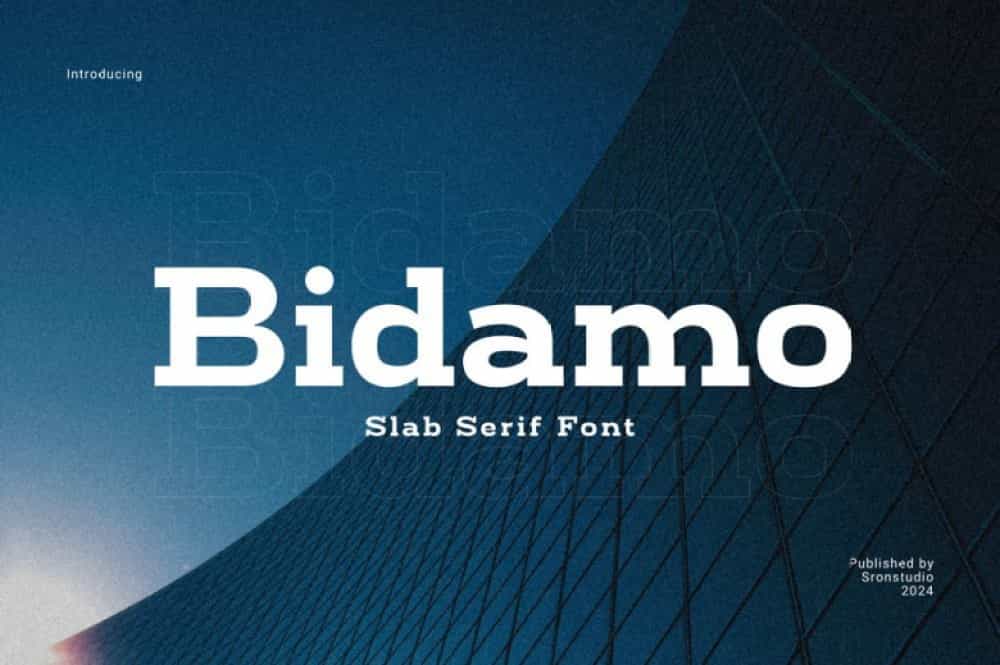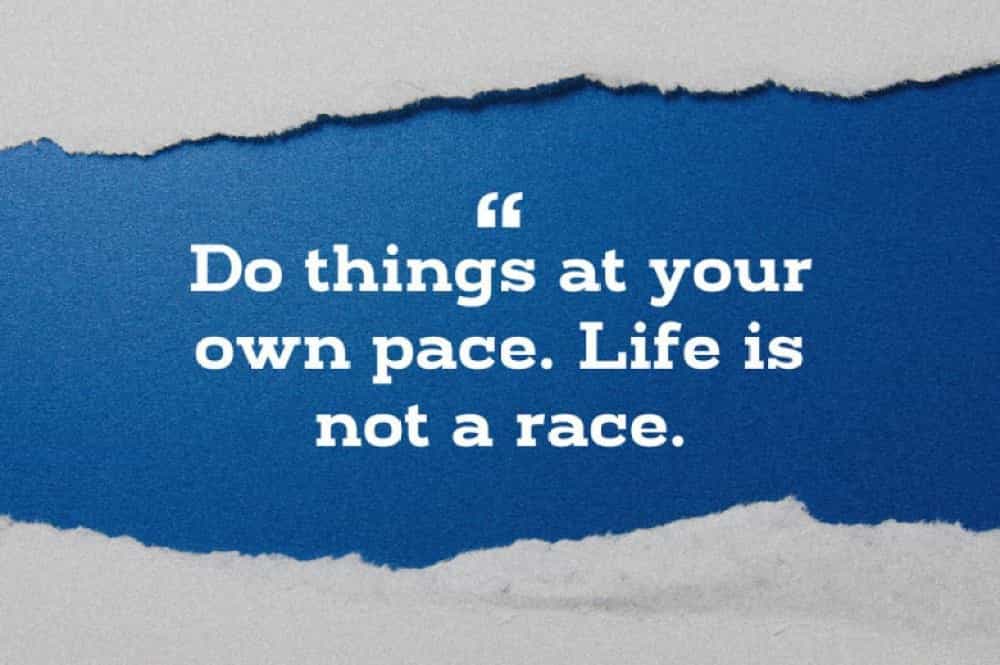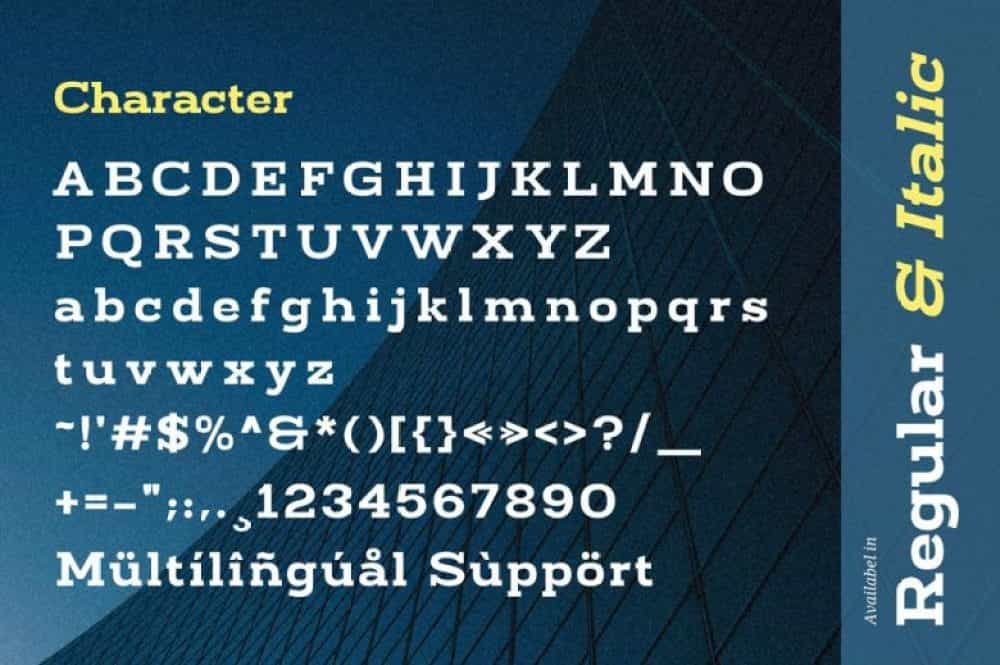
Bidamo is a strong, contemporary, slab serif font that was designed for getting attention. Bidamo features bold and clear, almost architectural letters and a modern design, which makes it suitable for titles, logos, branding, and posters. This font applies the features of slab serifs and at the same time gives a new perspective to the contemporary designs.